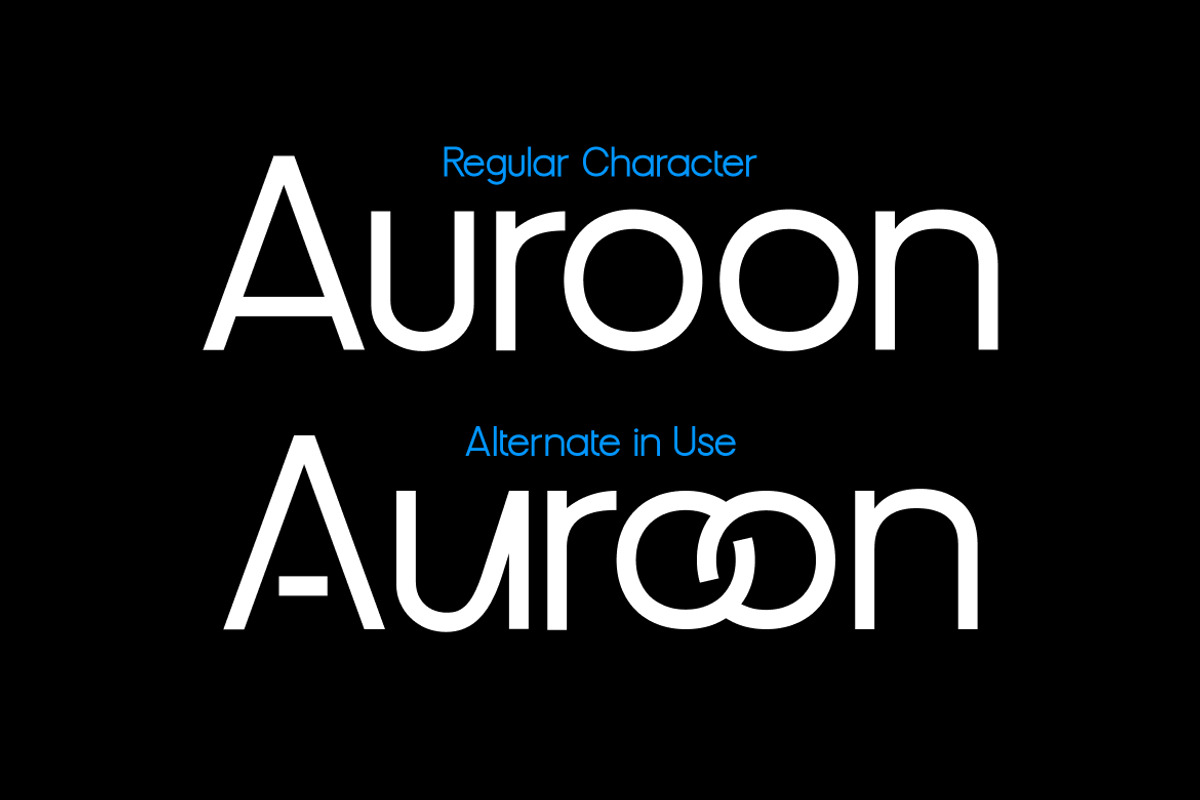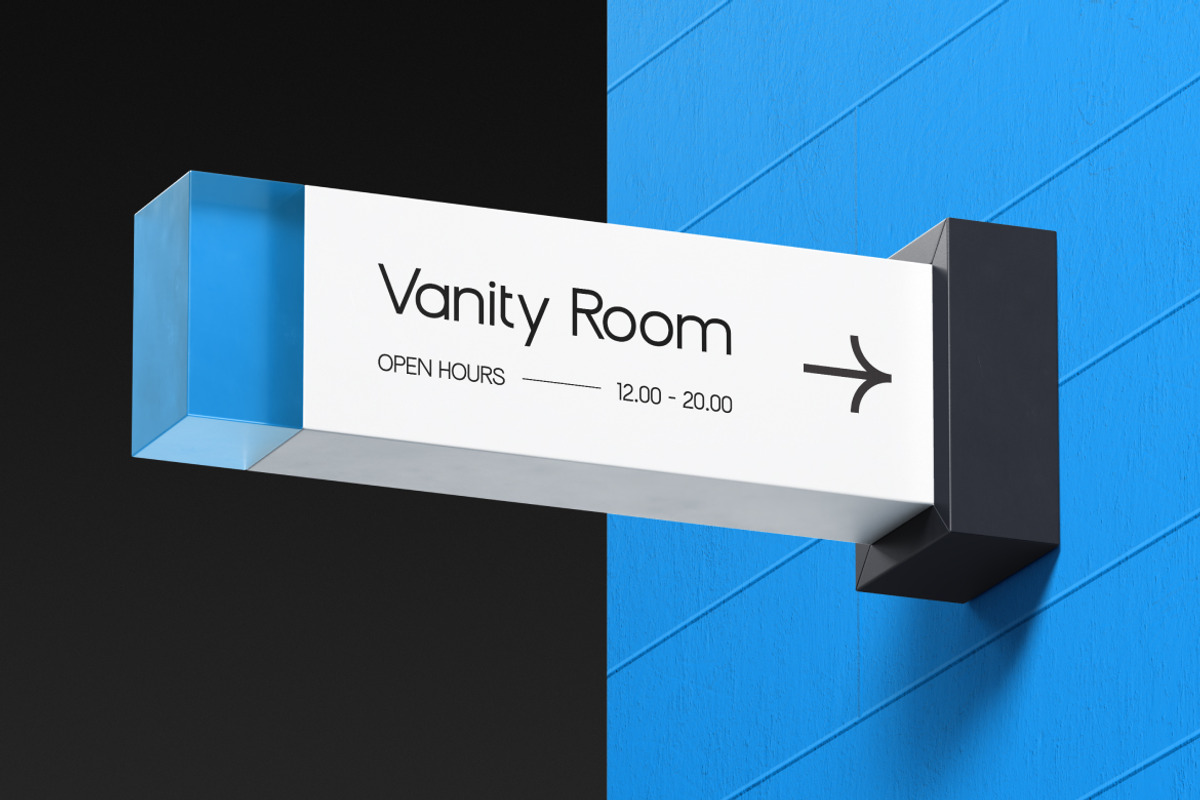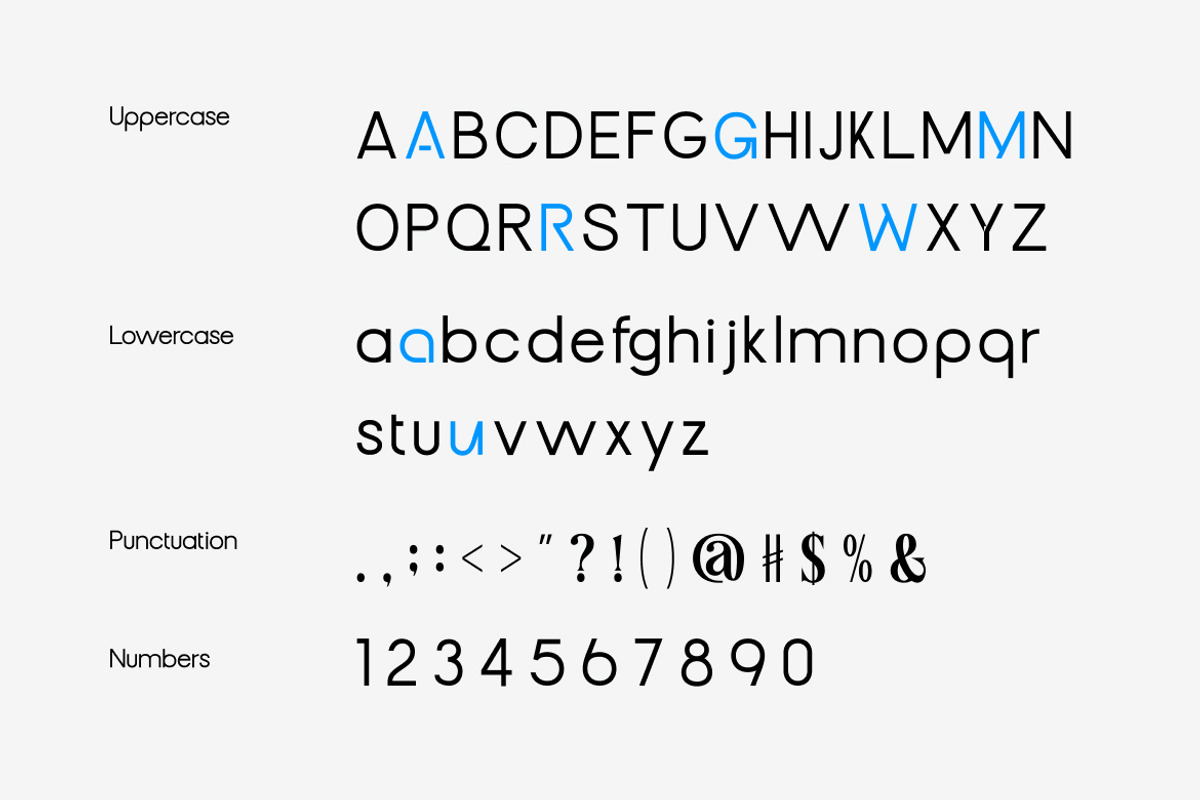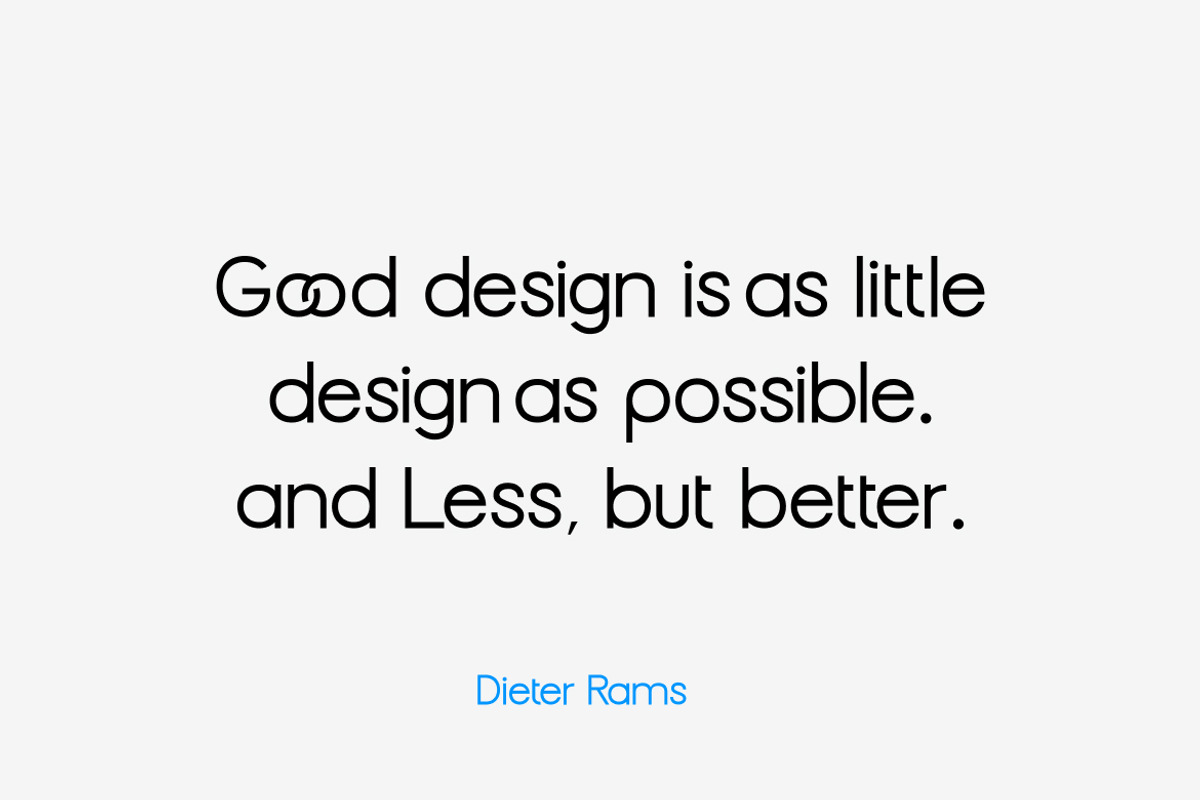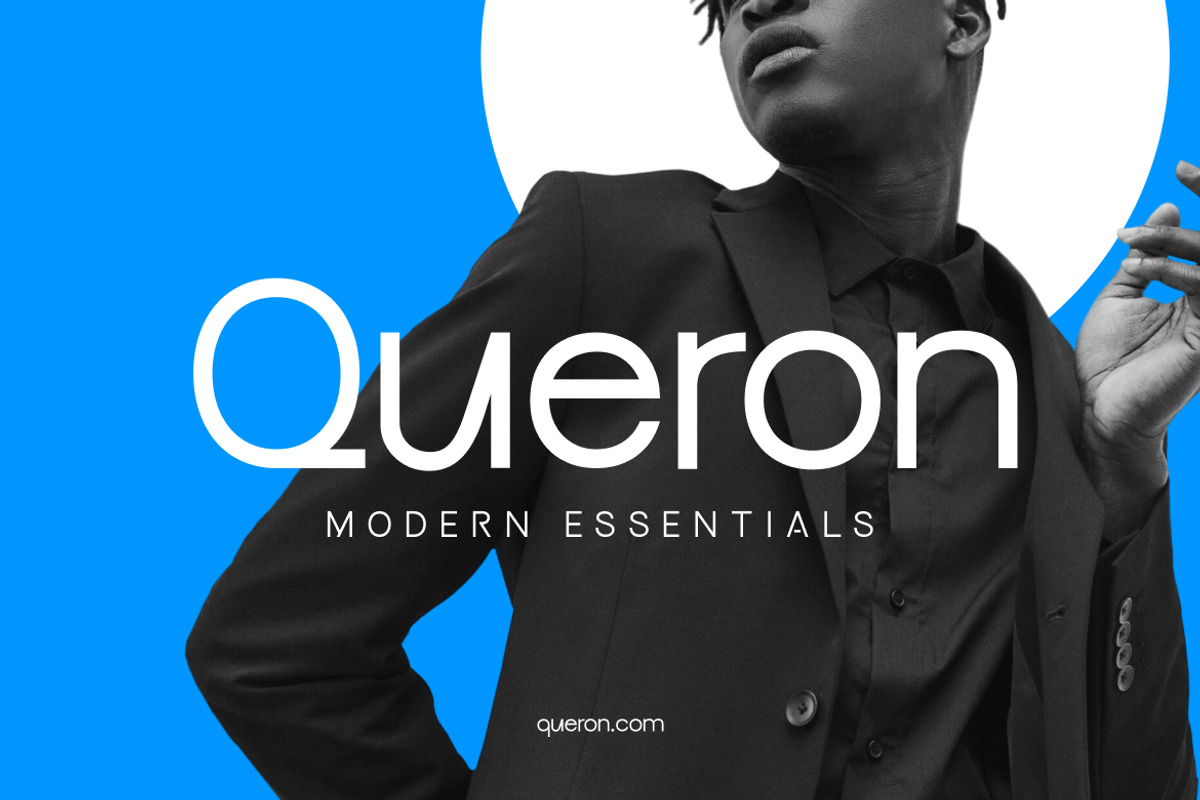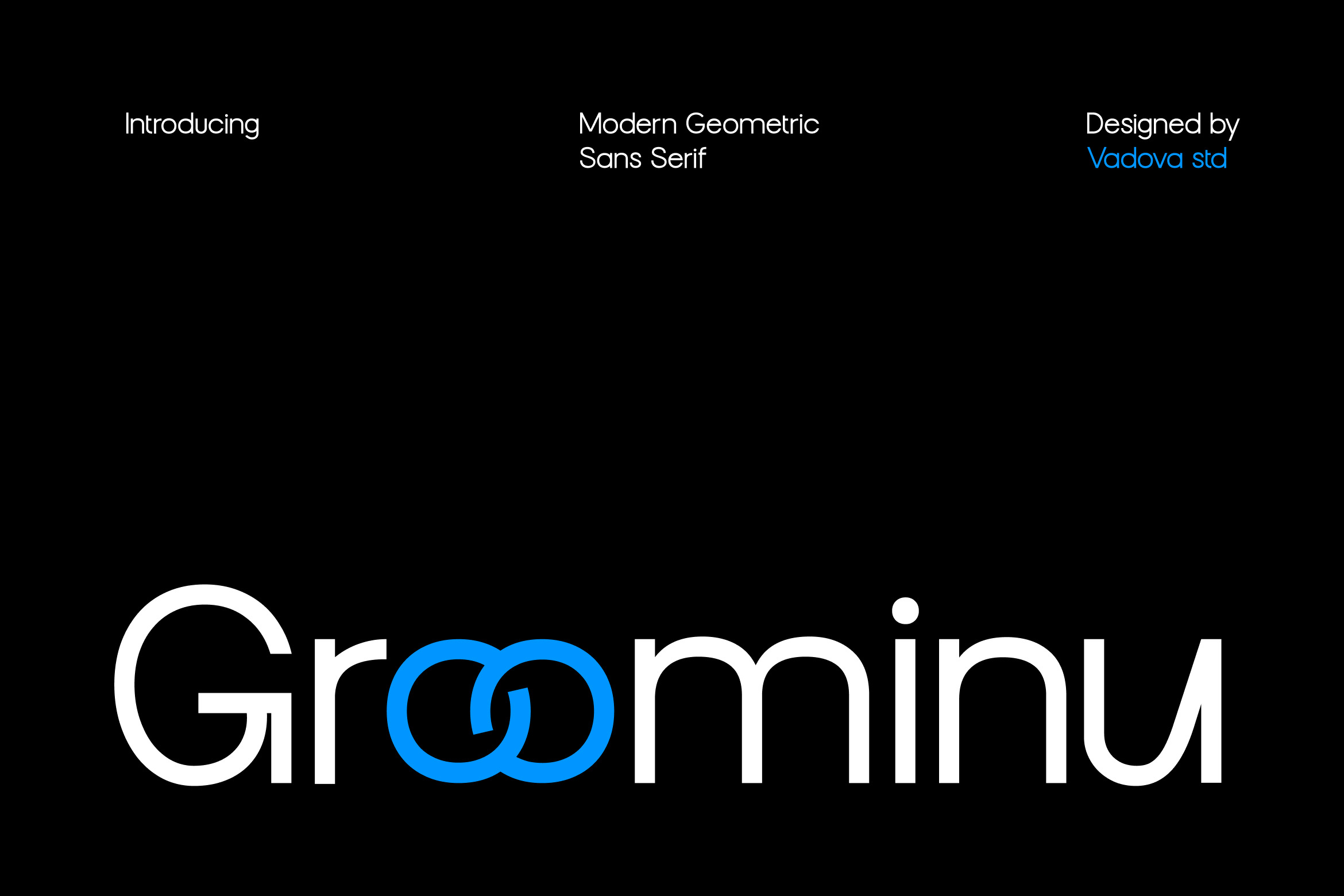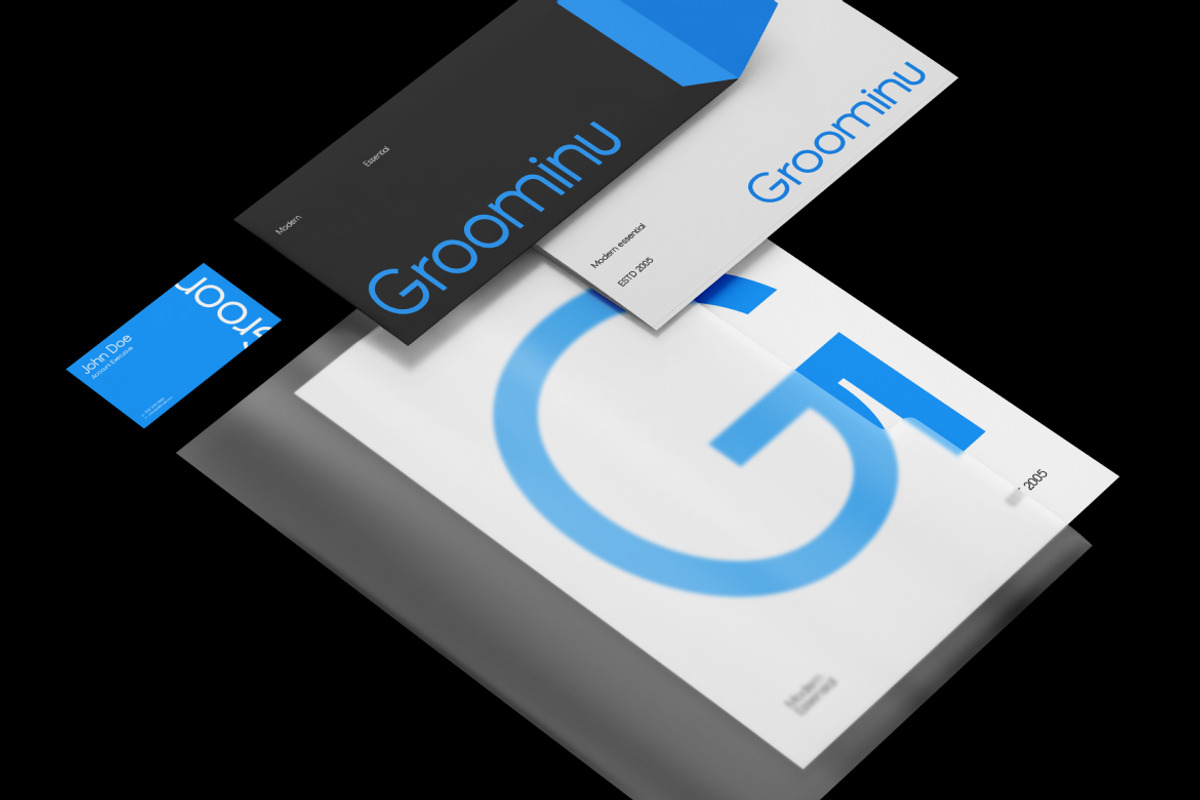
Groominu Geometric Sans Serif Font
Groominu is a clean, minimal geometric sans serif typeface designed with bold precision and subtle character play. Featuring unique custom ligatures and rounded balance, Groominu brings a sleek and modern aesthetic that’s perfect for branding, digital design, fashion, and tech-forward identities. The font includes uppercase and lowercase characters, numbers, punctuation.
Groominu is an excellent choice for forward-thinking branding and design. It’s ideal for tech companies, fashion startups, creative agencies, app UI/UX design, and modern editorial layouts. The font’s clean geometry ensures clarity, while its unique characters add just the right touch of originality to make any design stand out.
- Geometric sans serif structure with a modern and clean aesthetic
- Unique linked double “o” ligature adds character and branding potential
- Balanced proportions and consistent x-height for optimal readability
- Smooth curves and simplified shapes create a futuristic but approachable tone
- Versatile across weights and sizes from bold logos to sleek UI elements
- Tech startups and innovative brand identities seeking a modern look
- Mobile apps and dashboard UI/UX designs
- Futuristic product packaging and digital branding
- Clean, minimalistic web design and hero headlines
- Social media graphics and marketing materials for modern brands
Design with clarity and confidence, powered by Groominu